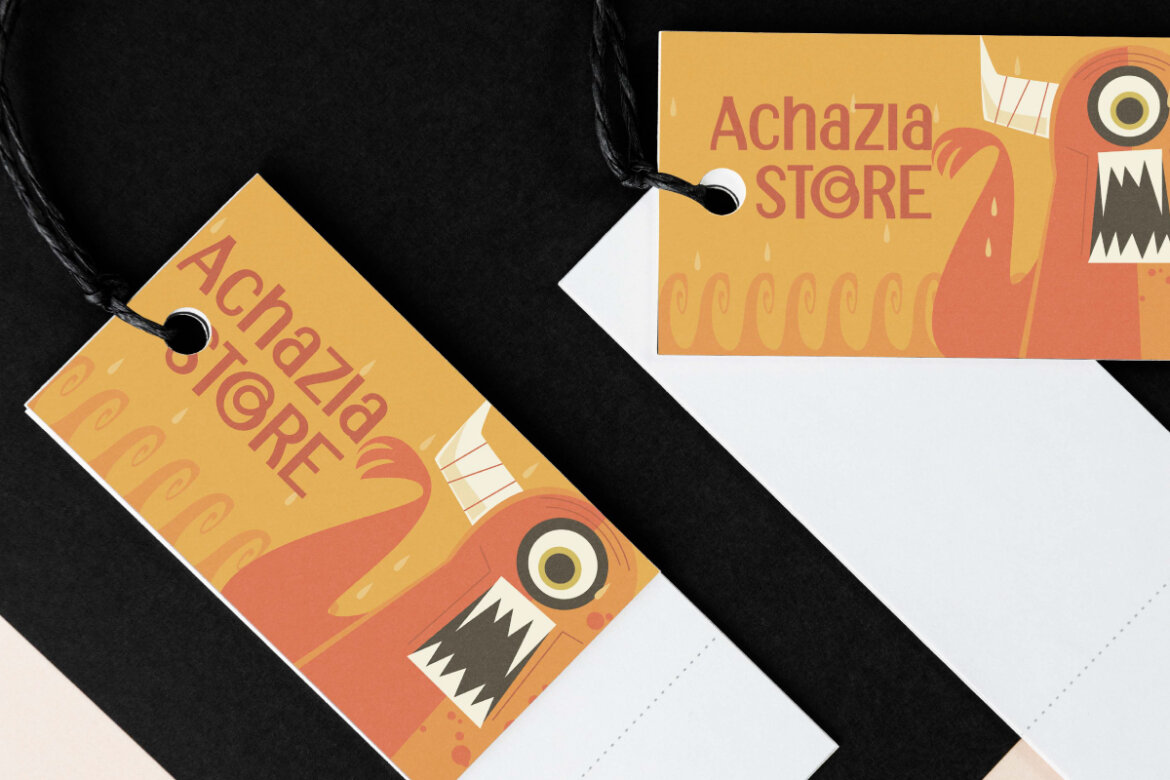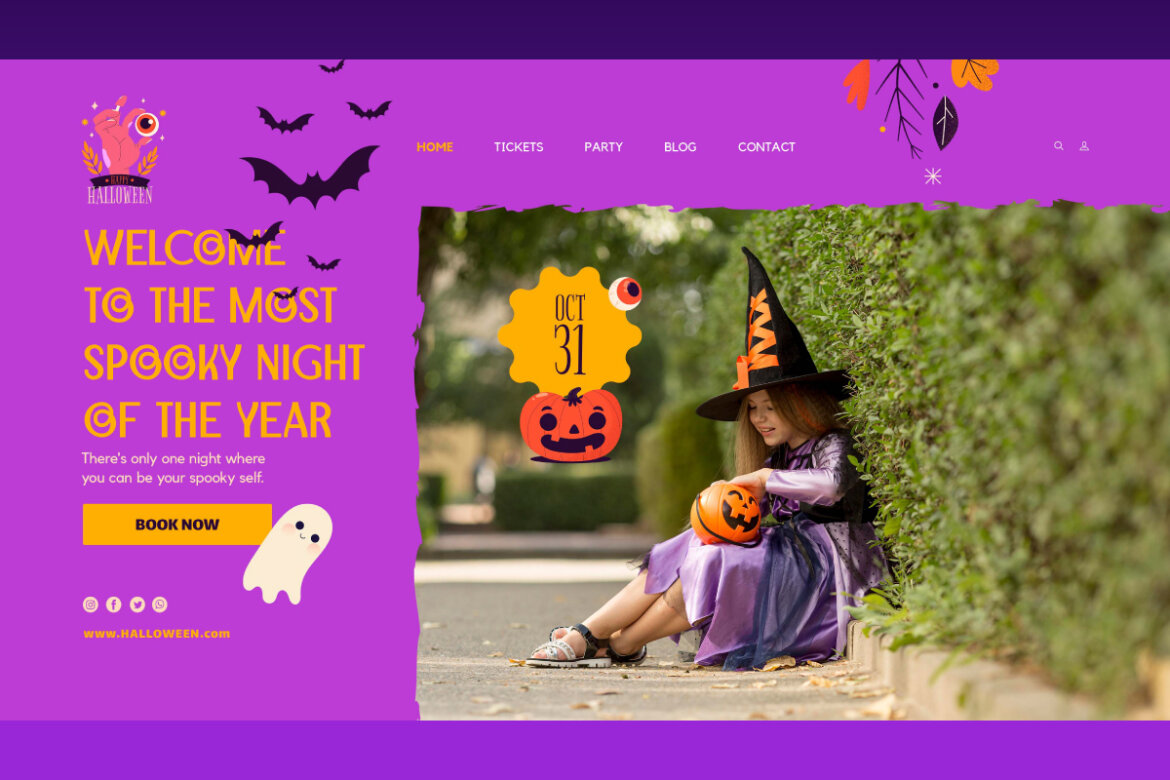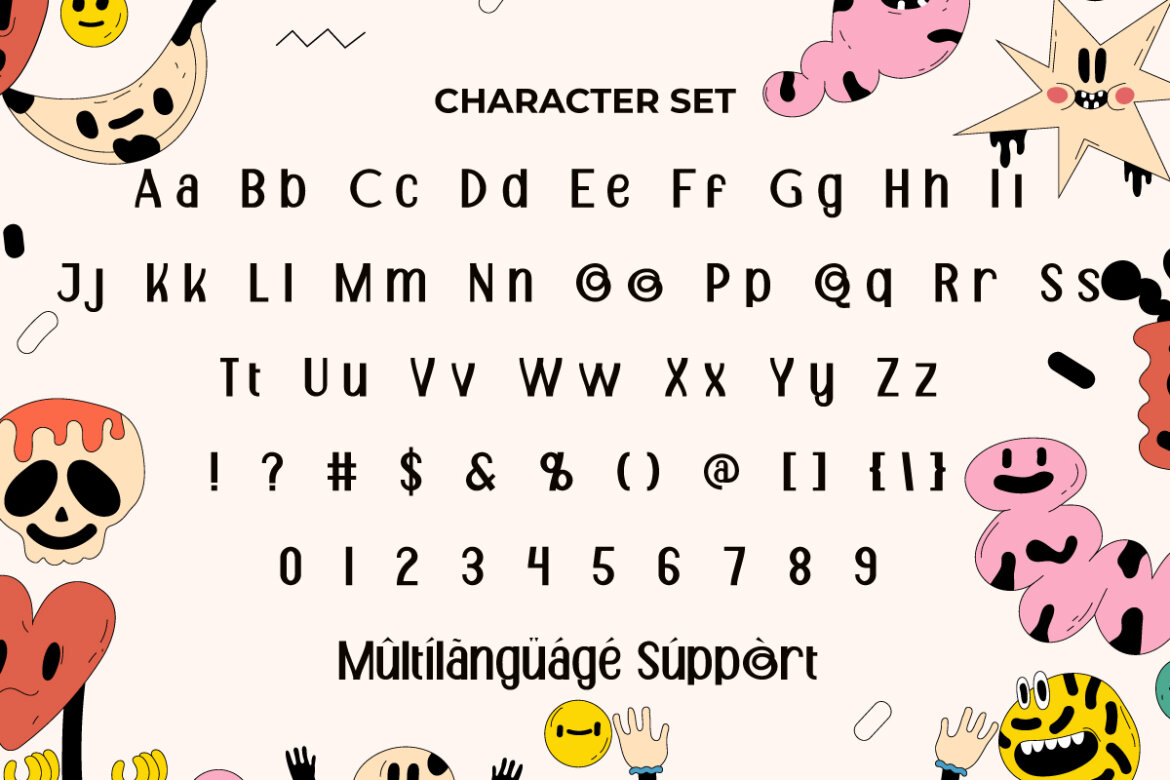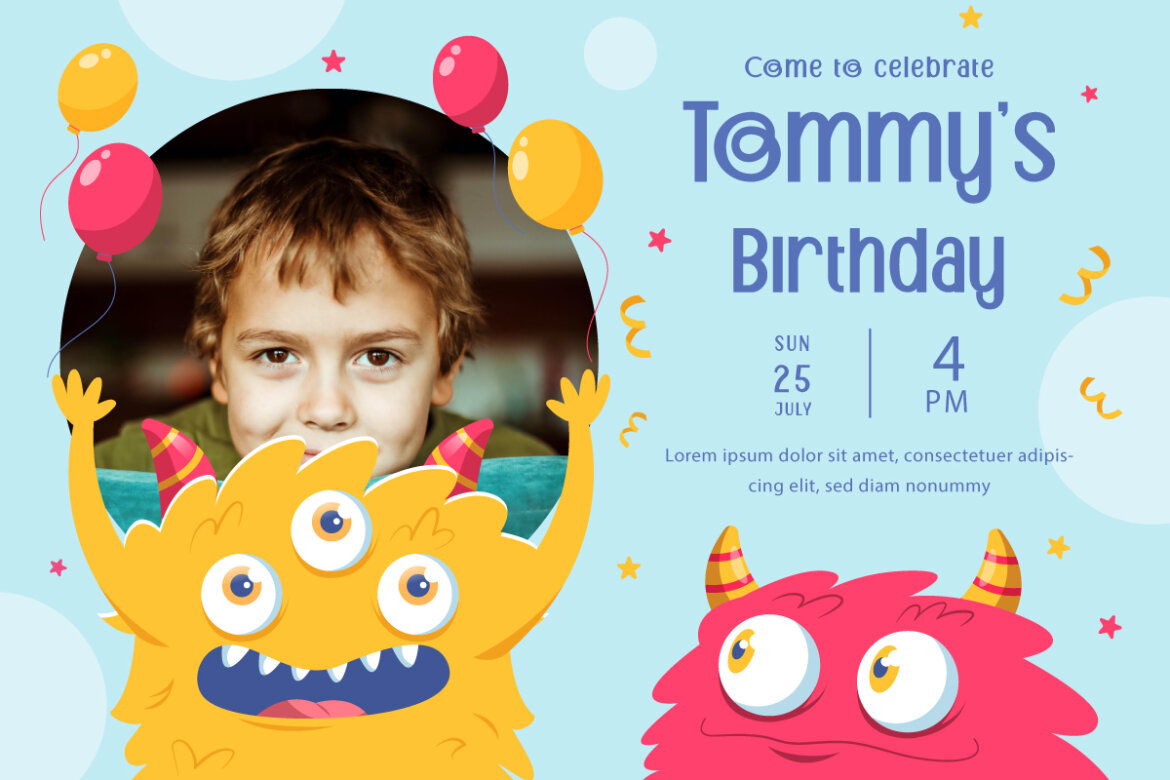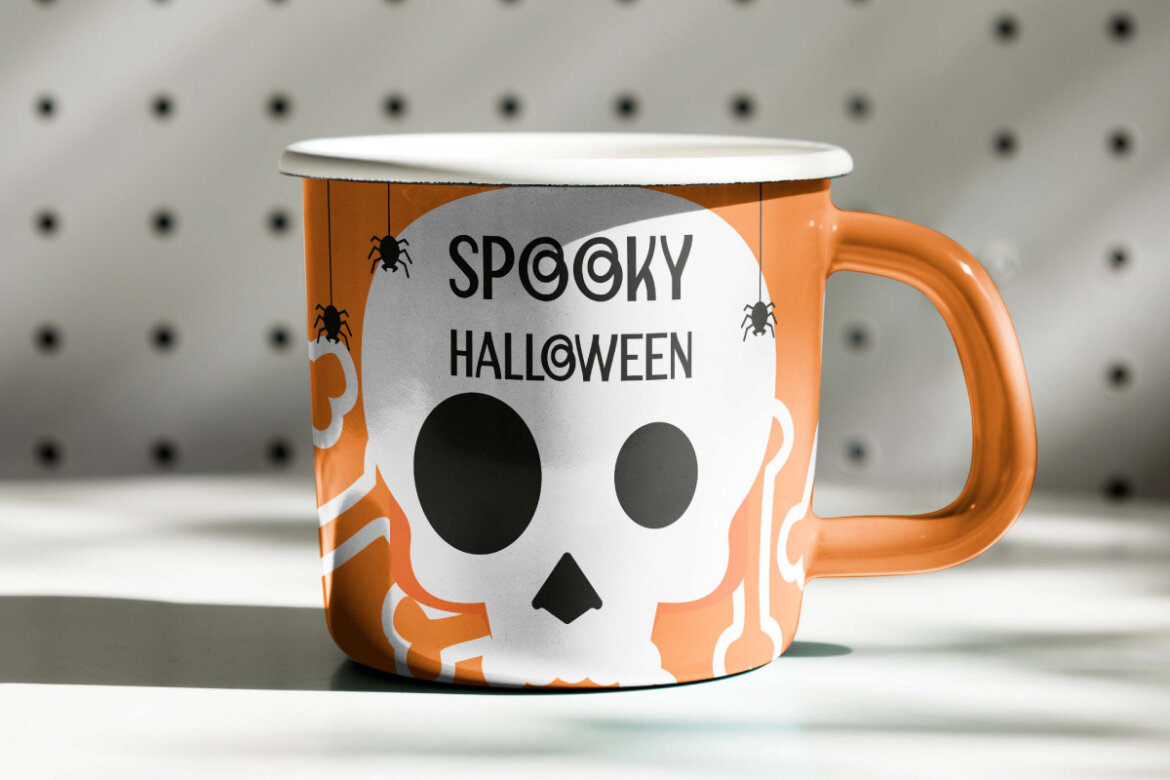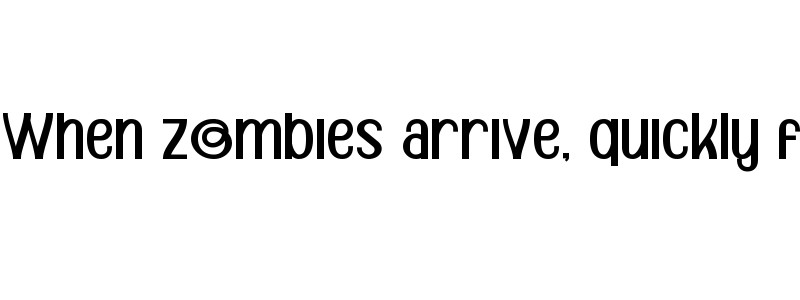
Funny Monster
Funny Monster Font is a funny and playful sans serif display font. Inspired from cartoon cute movies, this font has a very attractive style and is suitable for any creative ideas you have. It will be suitable for any business, such as accessories, cafe, entertainment, fashion, kids stuff, party or event, photography, printing, publishing, restaurant, writer, and many more!
Funny Monster Font comes with full set of Uppercase and Lowercase Basic Characters, Number, a large range of Punctuation, and Symbol. It has cute characters set, perfectly managed with well spaced and kerning. Funny Monster Font will be able to complement for any design (with extended license) including: brand image, cartoon, comic, cover, custom design, invitation, label, merchandise, packaging design, poster, quote, screen print, signage, stationery, sticker, title, website page, etc.